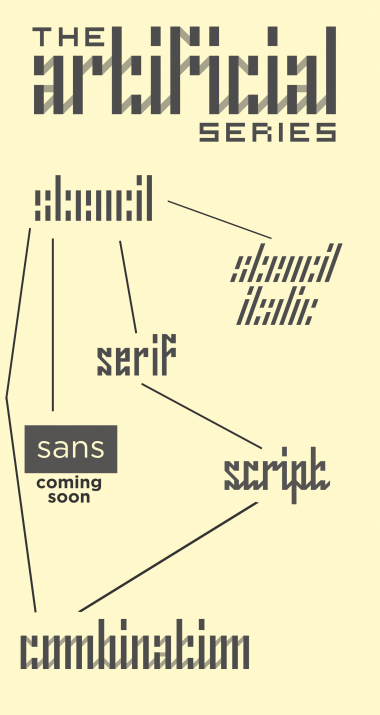
That's a very cool entry,
I love the square approach 10
BTW, some words are a little bit hard to read in the sample text mode, like "brown" (it seems "brauwn"),"over" or "vow" or "black" (is like "blact" here), "proves"... IMHO, the difficulty on reading comes only from a few of the glyphs, like the k, o, v, w... What do you think about this?
My 10 2U.
Nice one!
Wonderful idea for a family. I especially like the combination of script and stencil in your sample.
A good new member of the family. 10/10
Congratulations! FontStruct Staff have deemed your FontStruction worthy of special mention. “Artificial Script” is now a Top Pick.
Wow! I didn't expect this
Artificial Scriptby Isaac González (1saac)